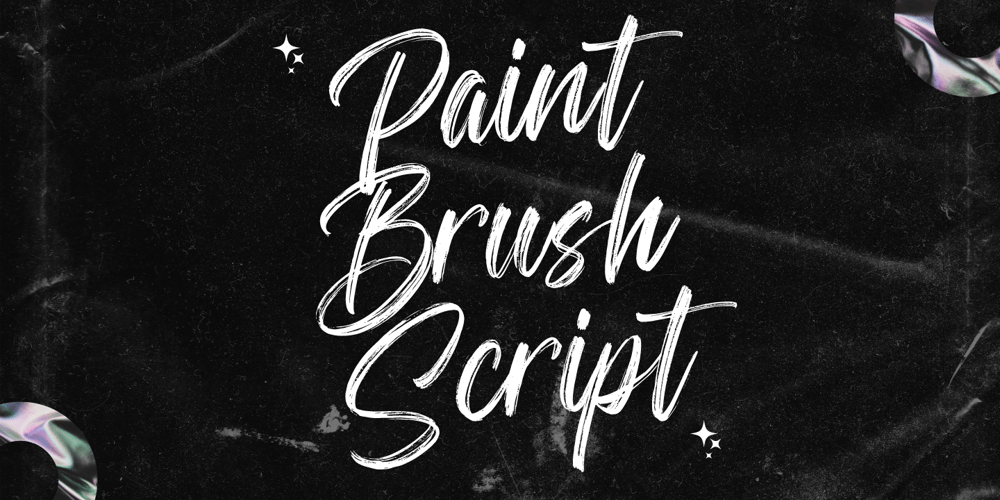
Paint Brush Script Font Family was designed by Sigit Dwipa and published by Nirmana Visual. Paint Brush Script contains 1 styles and family package options. Paint Brush Script is a Natural Brush handwriting modern calligraphy font.Paint brush offers beautiful typographic harmony for a diversity of design projects, including logos & branding, social media posts, advertisements & product designs.